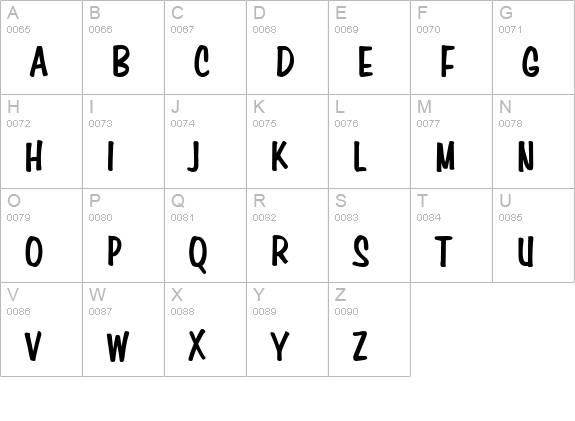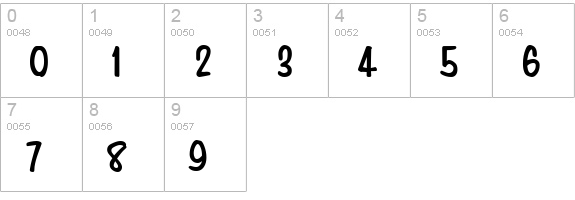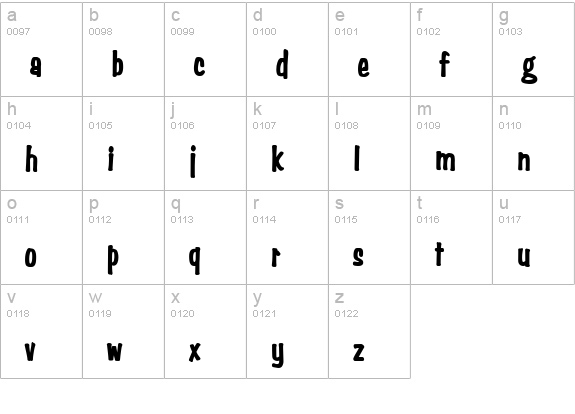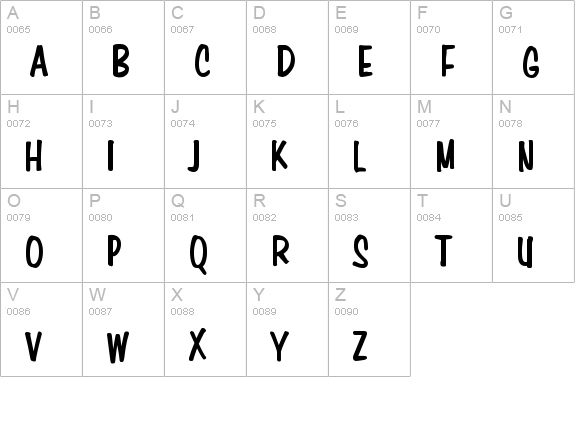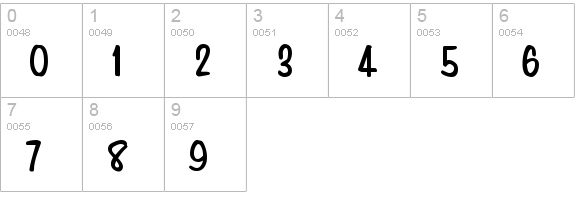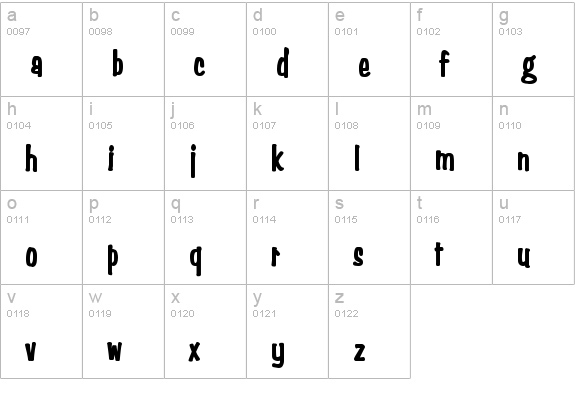
Simpson Condensed Heavy Bold is a heavy, high-impact, condensed-width variant in the Simpson typeface family \xE2\x80\x94 well suited to high-impact headlines, posters, and display advertising.
Simpson Condensed Heavy Bold font is a powerful and striking typeface that exudes confidence and strength. Its condensed design adds a sense of compactness and efficiency, making it perfect for headlines, logos, and other bold design elements. This font is characterized by its heavy weight and bold letterforms, which make a bold statement and command attention. The thick strokes and robust curves give it a strong and impactful presence, making it a go-to choice for projects that require a bold and assertive aesthetic. Simpson Condensed Heavy Bold font is not only visually impressive but also highly versatile. It is suitable for a wide range of design applications, from print materials such as posters, banners, and brochures, to digital projects like websites, social media graphics, and app interfaces. What sets Simpson Condensed Heavy Bold font apart is that it is freely available to download at FontsMarket.com. This means that anyone can access and utilize its bold and captivating style without any cost. Its availability as a free font offers designers, creatives, and enthusiasts the opportunity to enhance their projects with a distinctive and impactful typeface, without any financial burden. Whether you are working on a personal project or a professional assignment, Simpson Condensed Heavy Bold font is the perfect choice to make a bold statement. Its free availability at FontsMarket.com ensures that you can easily access this remarkable typeface and take your designs to the next level.